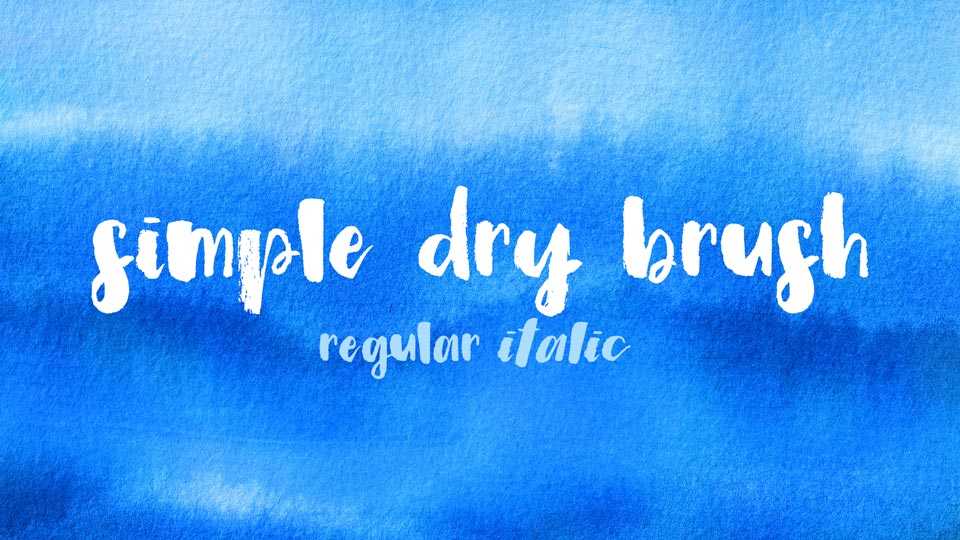
Downlad Simple Dry Brush font, a hand painted script lettered with a Pentel refillable brush pen, medium size, using carbon black ink in Regular and Italic styles.
Designer: Out of Step Font Company